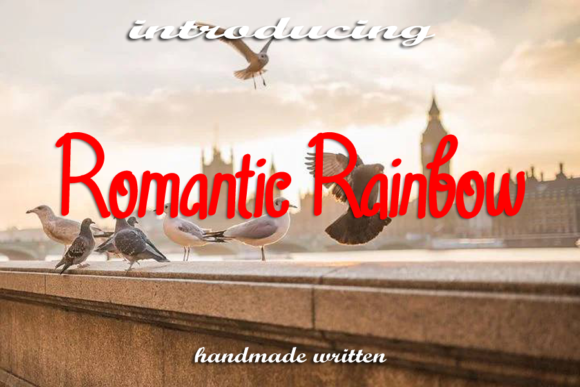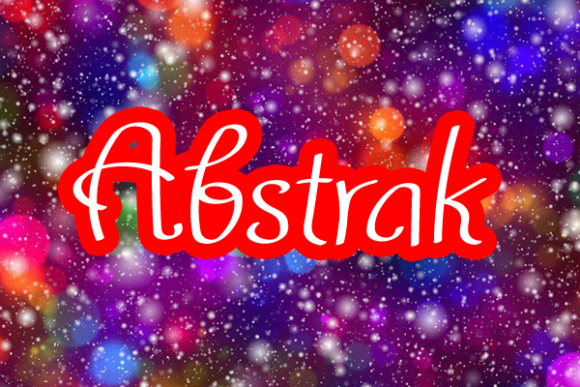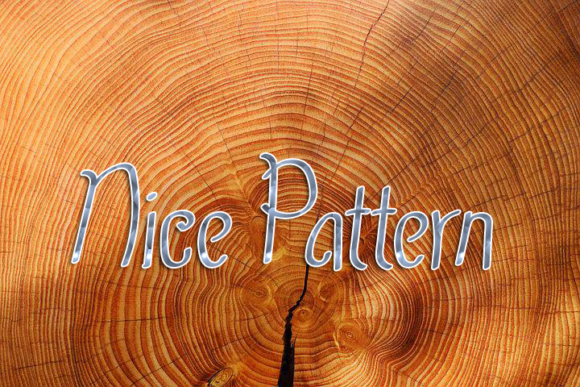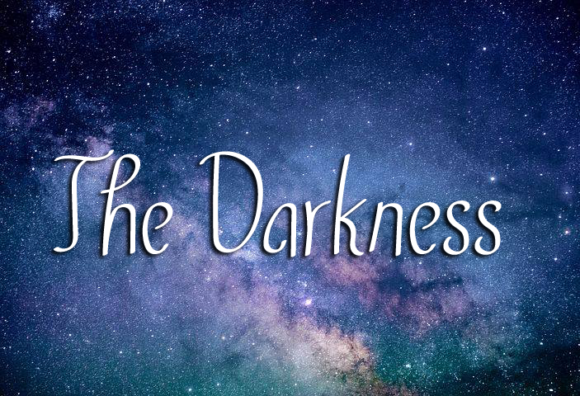
Romantic Rainbow Font
About Romantic Rainbow Font
Romantic Rainbow is an elegant and dainty handwritten font that features sweet and delicate swashes. This original look will appeal to a wide range of crafty ideas, from letterheads and titles, to stationery.